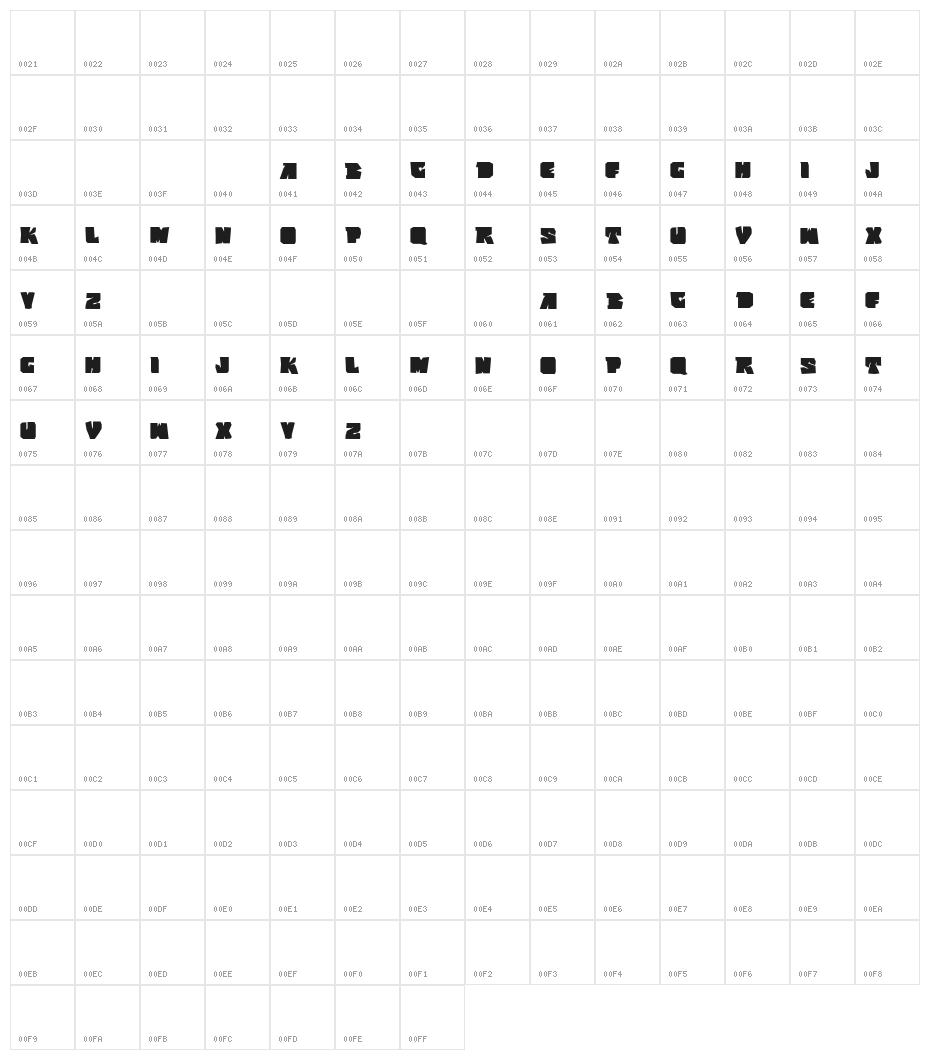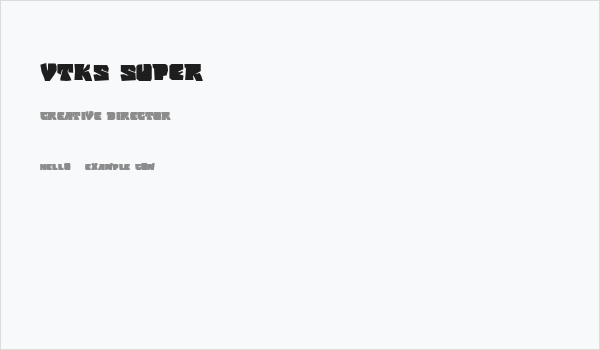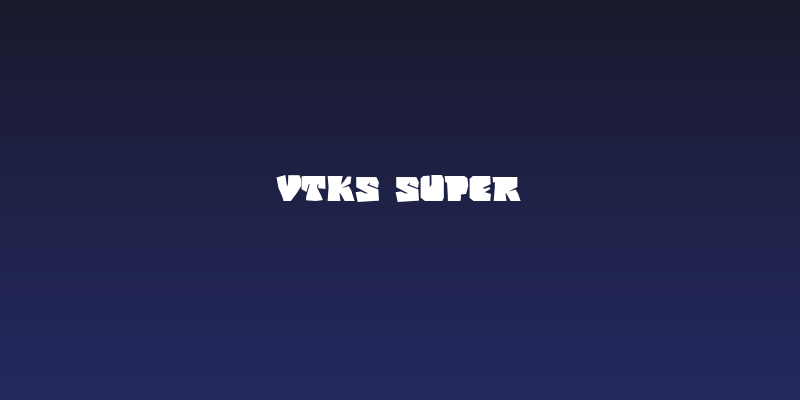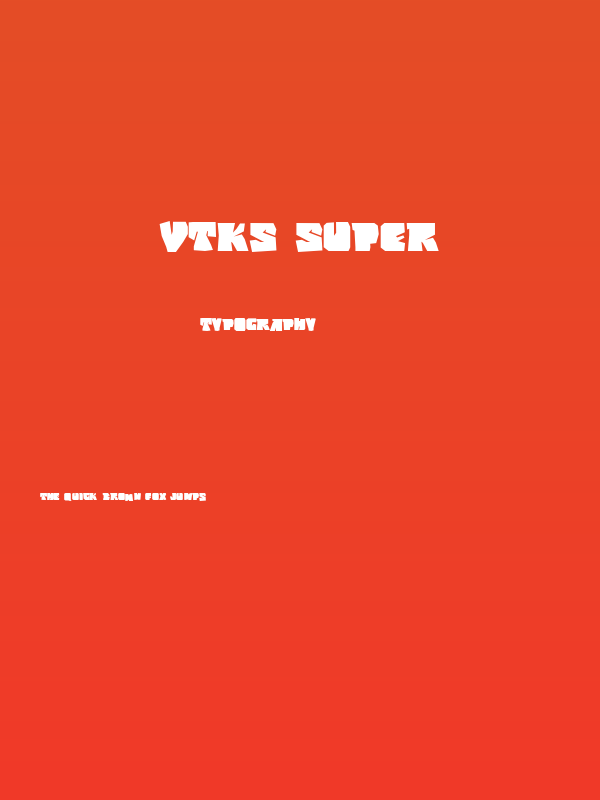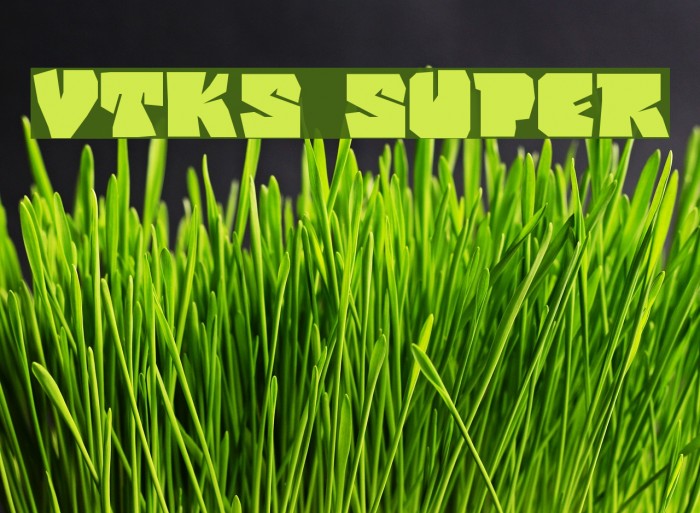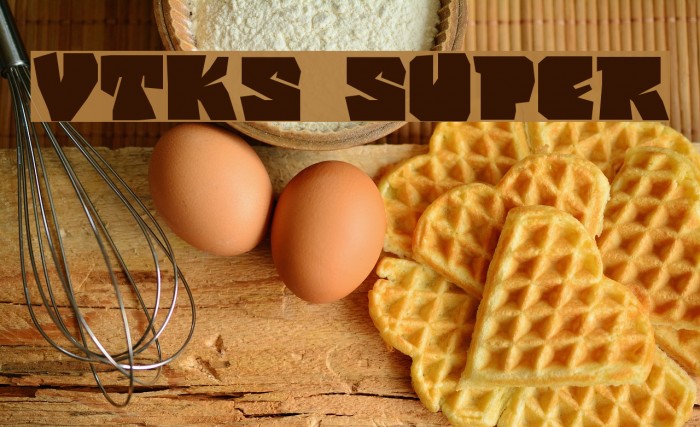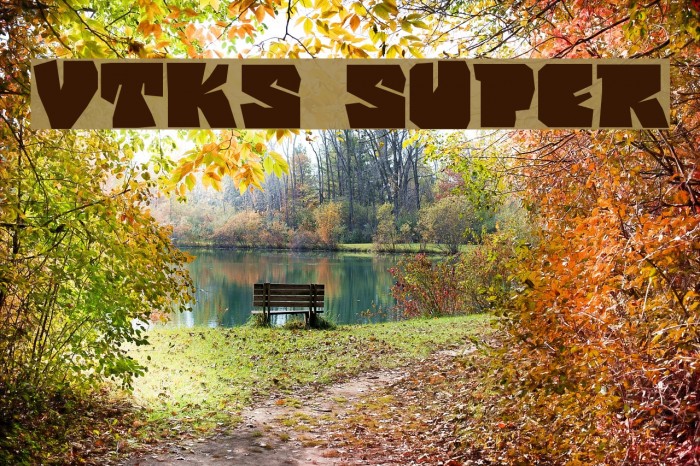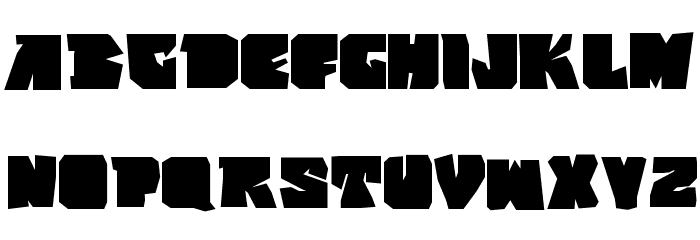
vtks super Font
vtks super Description
This font features a bold, geometric design with sharp, angular edges and a blocky appearance. The characters are heavily stylized, giving a sense of strength and impact. Each letter is distinct, with unique cuts and angles that create a dynamic and aggressive look. The uppercase and lowercase letters maintain a consistent style, emphasizing the font's boldness and modernity. The numbers and special characters follow the same design principles, ensuring uniformity across all glyphs.
| Proposed Projects | Ideal for projects that require a strong visual impact, such as posters, logos, video game titles, and branding for edgy or modern products. |